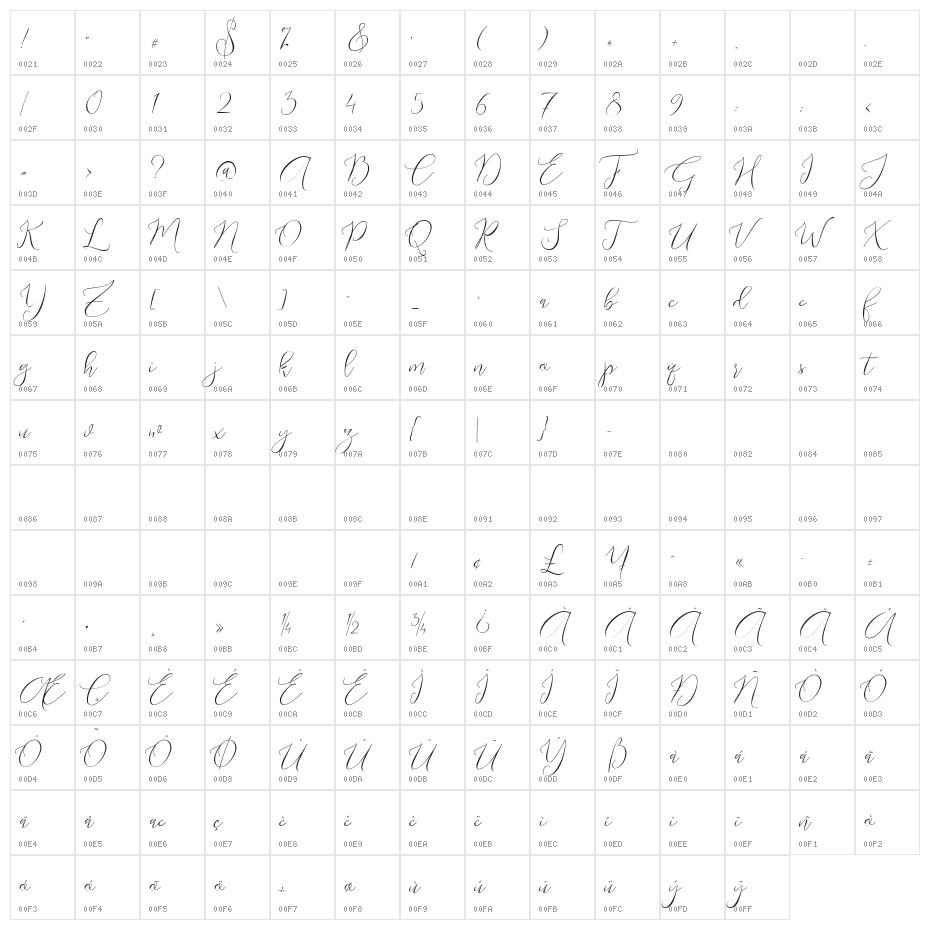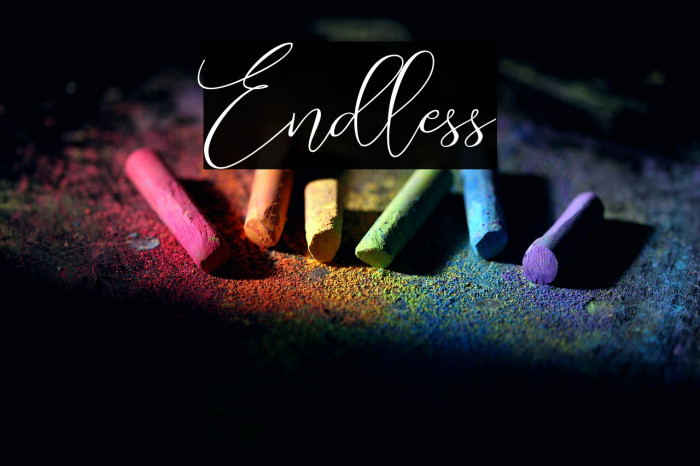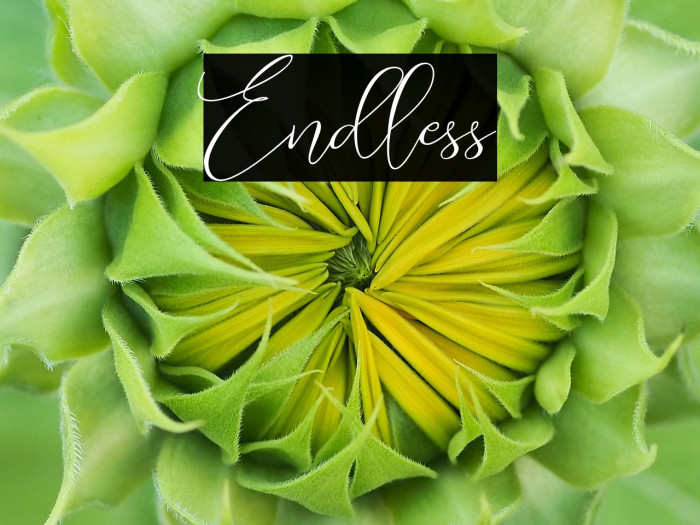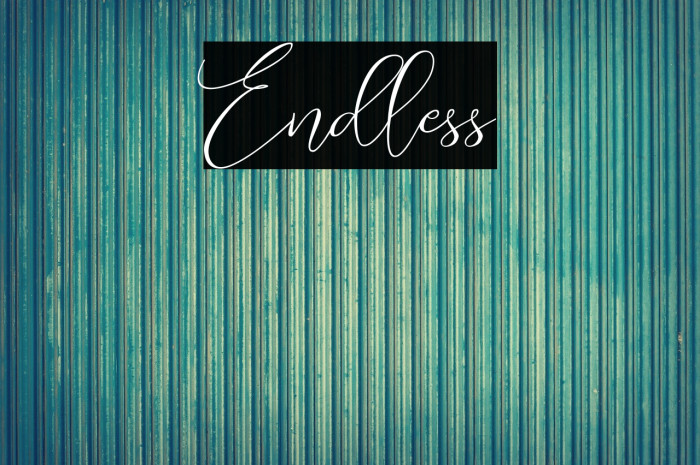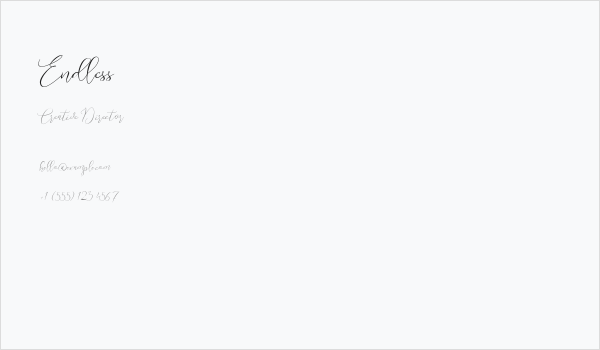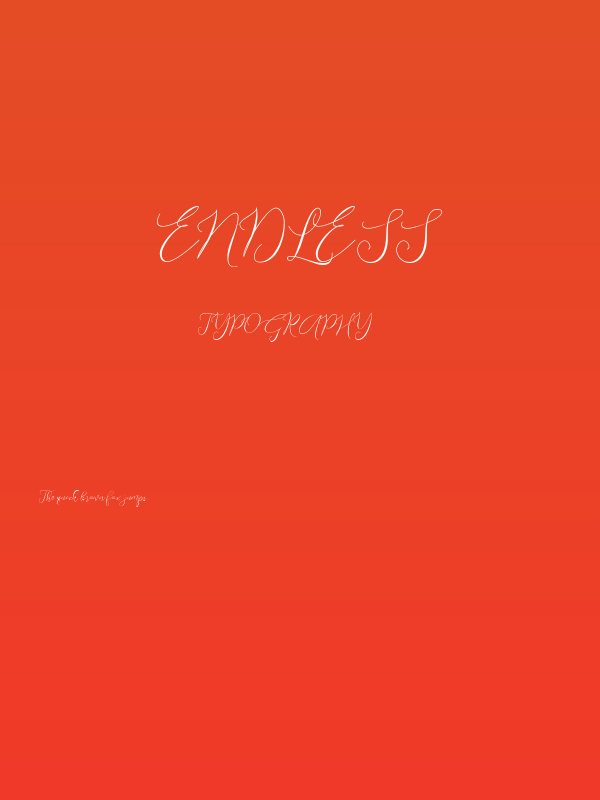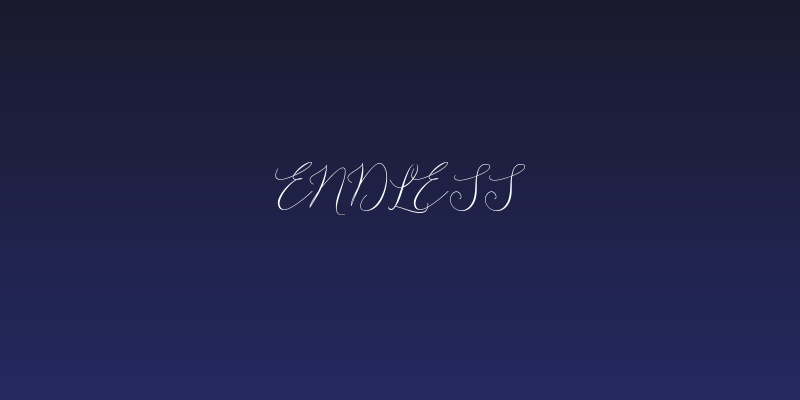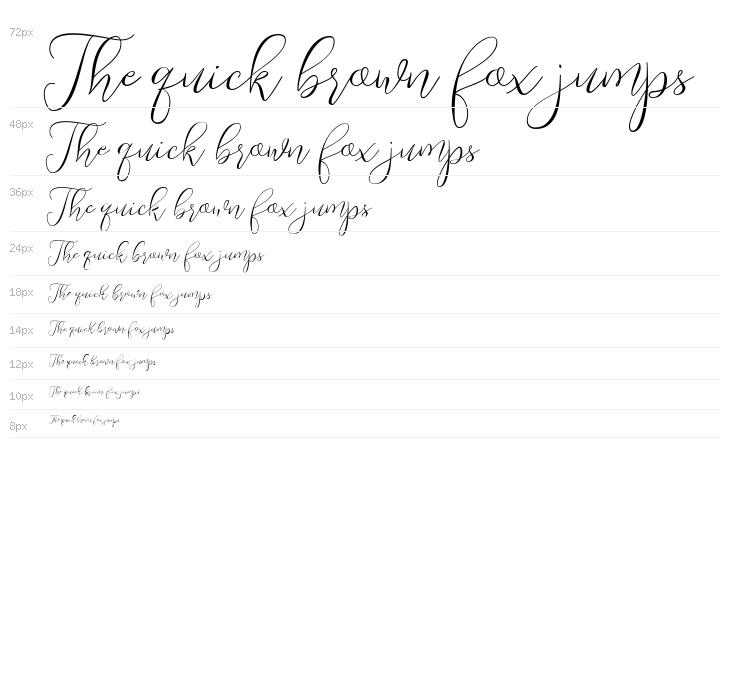
Endless Font
Endless Description
This elegant script font features fluid, flowing strokes that mimic the natural movement of handwriting. The uppercase letters are characterized by their sweeping curves and graceful loops, while the lowercase letters maintain a consistent flow with delicate connections. The numerals are stylishly crafted, maintaining the font's overall aesthetic. Special characters are thoughtfully designed to complement the letterforms, enhancing the font's versatility. The font's thin lines and high contrast between thick and thin strokes add a touch of sophistication, making it suitable for formal and decorative applications.
| Proposed Projects | Ideal for wedding invitations, elegant branding, greeting cards, and decorative projects. |